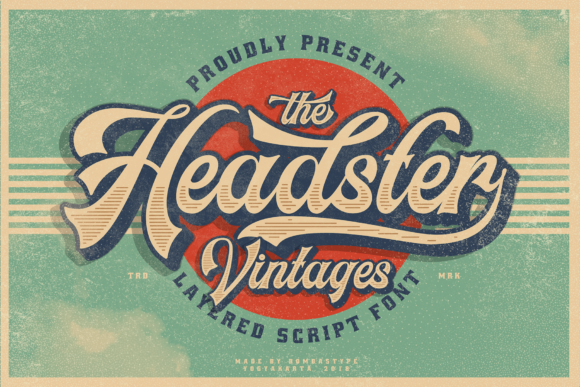
Embark on a typographic odyssey with Headster Family Font, a script typeface that emanates the charm of bygone eras. Experience the allure of vintage label designs reimagined for the modern age.
With each character meticulously crafted, Headster offers an ensemble of five distinct fonts, empowering you to weave intricate typographic tapestries. Layer these fonts to conjure a unique aura that captivates the senses and leaves a lasting impression.
Unleash your creativity and let your designs flourish with Headster's diverse alternates. Whether you're crafting flyers that demand attention or logos that exude timeless elegance, Headster is your steadfast companion. Let your imagination soar as you create badges that speak volumes and packaging that entices customers with its captivating allure.
Headster's versatility extends to a multitude of design projects. Its essence breathes life into invitations, imbuing them with a touch of nostalgia and sophistication. With Headster, the possibilities are infinite, like a kaleidoscope of colors waiting to be explored.
Dive into Headster's world and elevate your designs to new heights. Let its vintage charm intertwine with your creative vision, forging a symphony of visual delight. Discover the transformative power of Headster and embark on a journey where typography and artistry converge.